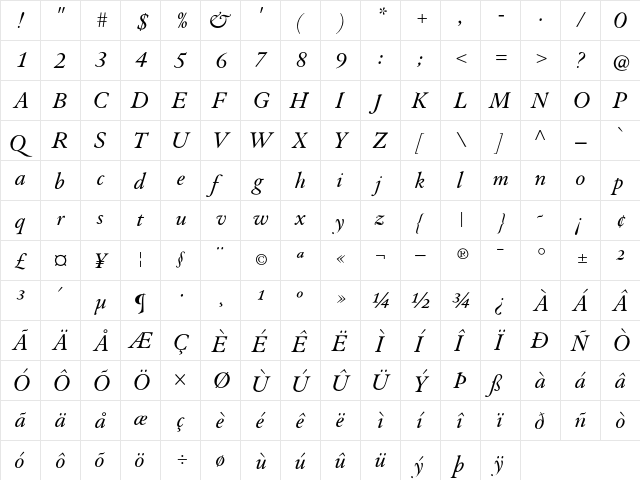
Augereau SemiBold Italic
Design Context for Augereau SemiBold Typeface
Augereau SemiBold takes a measured approach to typography — its balanced proportions and neutral character make it a reliable workhorse for both digital and print work. The slanted form adds forward momentum and visual energy. Its bold stroke weight gives it real presence on the page.
Pro Tip: Use Augereau SemiBold for emphasis, pull quotes, and subheadings where its slanted energy can add rhythm to the layout.